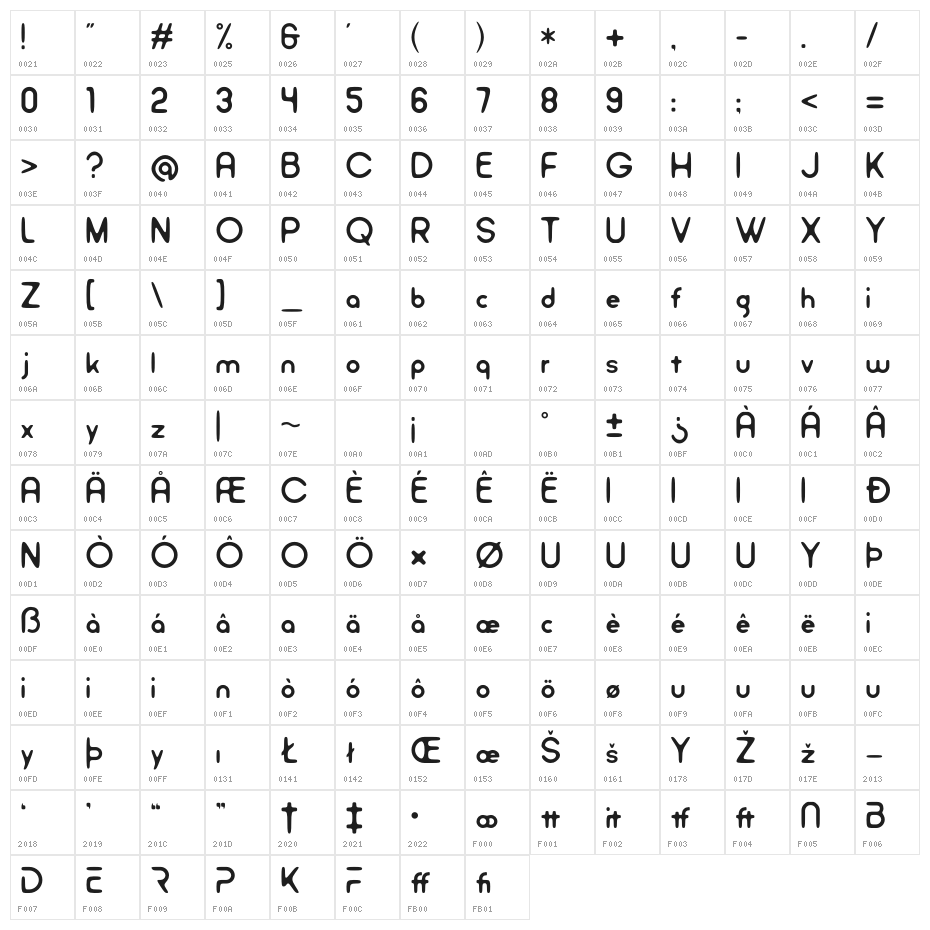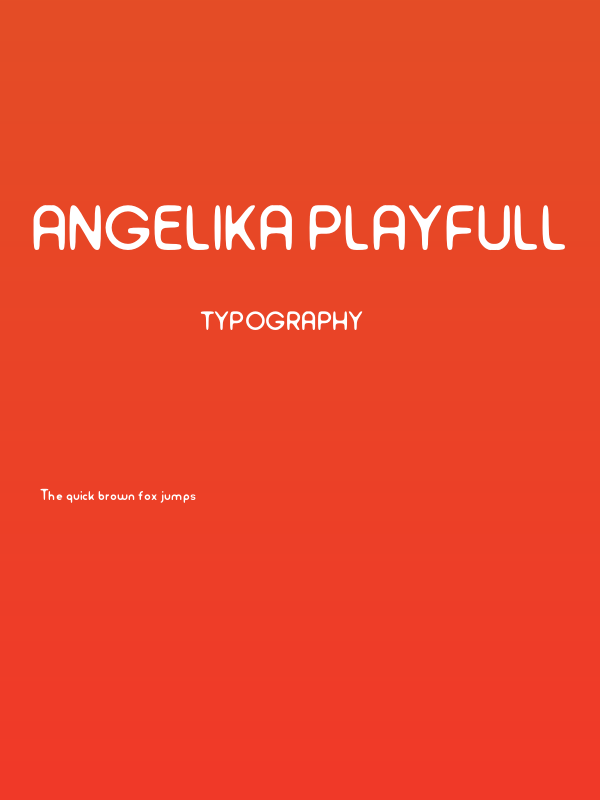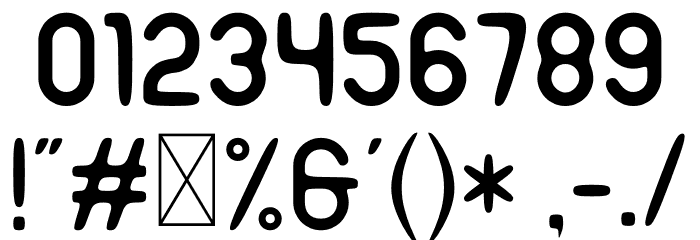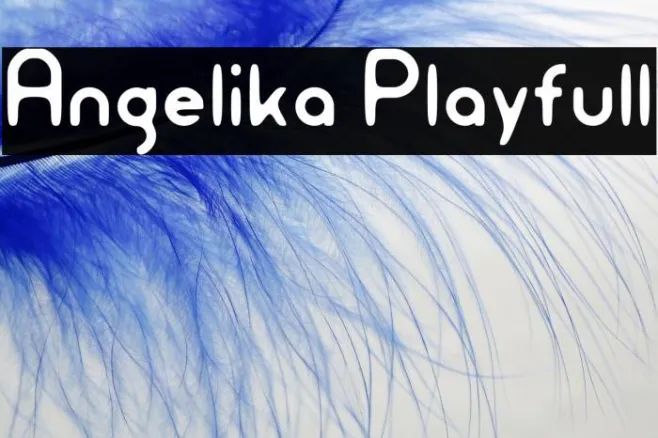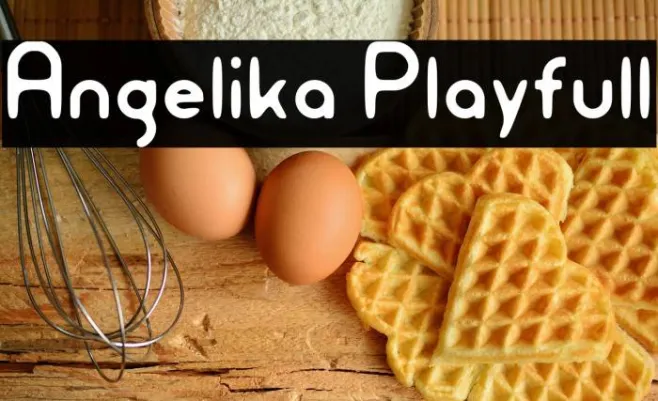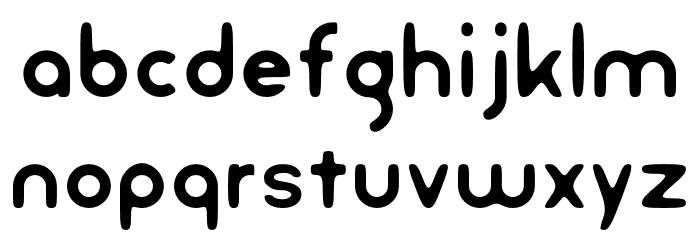
Angelika Playfull Font
Angelika Playfull Description
This playful and whimsical font features rounded, bubbly characters that exude a sense of fun and creativity. The letters are bold and slightly irregular, giving them a hand-drawn appearance that adds to their charm. The font includes both uppercase and lowercase letters, numbers, and a variety of special characters, making it versatile for different design needs. Its thick strokes and rounded edges make it highly legible, even at smaller sizes. The overall style is casual and friendly, perfect for projects that require a touch of personality and warmth.
| Proposed Projects | Ideal for children's books, playful branding, party invitations, and creative posters. |